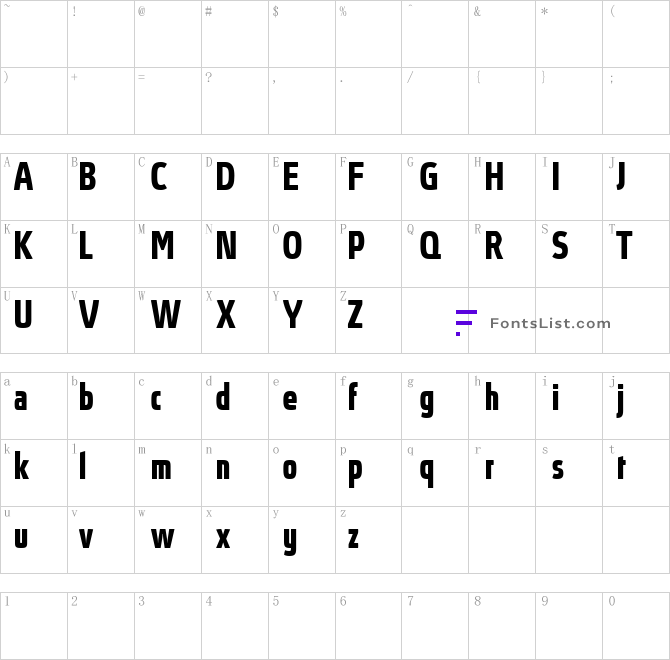
• Font Name:Absolut Pro Condensed reduced
• Subfamily:IngoZimmermann: Absolut Pro Condensed Bold reduced: 2009
• Full Name:Absolut Pro Condensed Bold reduced
• Weight:600
• PostScript:AbsolutProCond-Bold
Absolut-Pro-Condensed-Bold-reduced.ttf is a very beautiful artistic font, Absolut-Pro-Condensed-Bold-reduced.ttf is widely used in the design and printing of various books and pictures,Absolut-Pro-Condensed-Bold-reduced.ttf has a strong visual impact,Absolut-Pro-Condensed-Bold-reduced.ttf is a commonly used font in newspapers, magazines and books, and is used in posters, e-commerce Poster design, store design, logo design, font design and other fields.Absolut-Pro-Condensed-Bold-reduced.